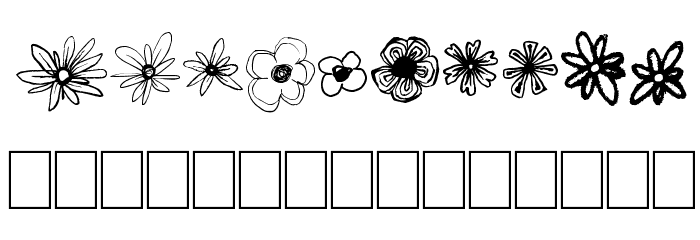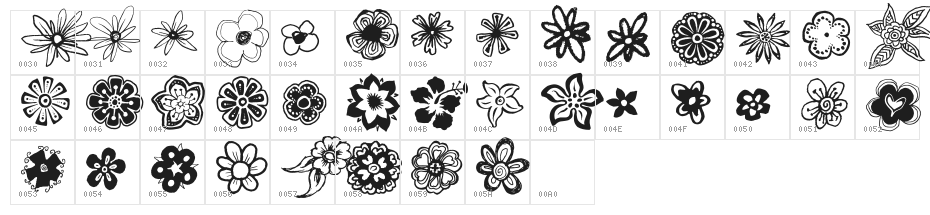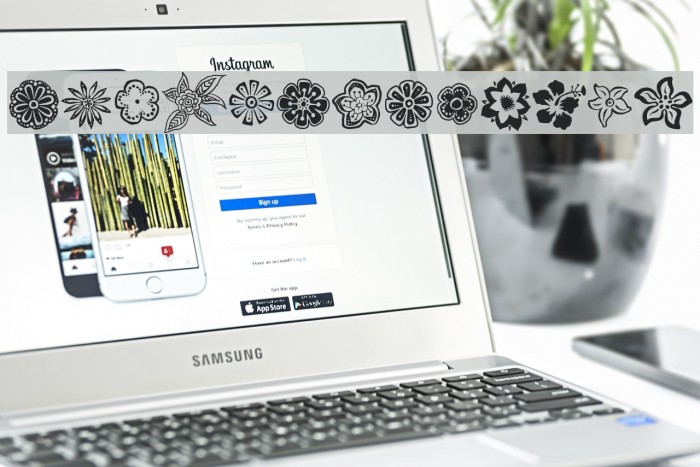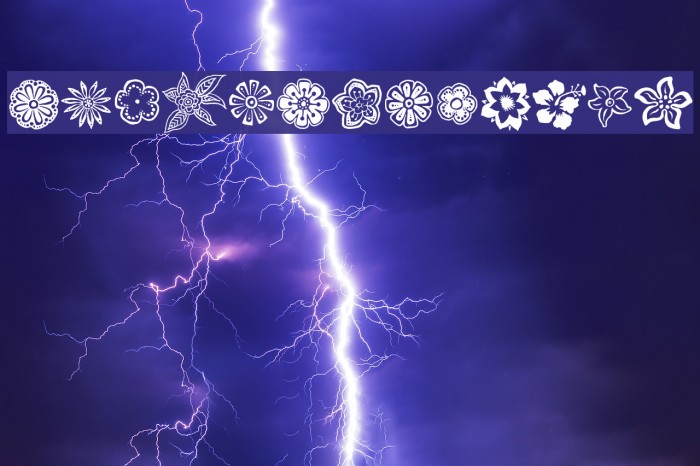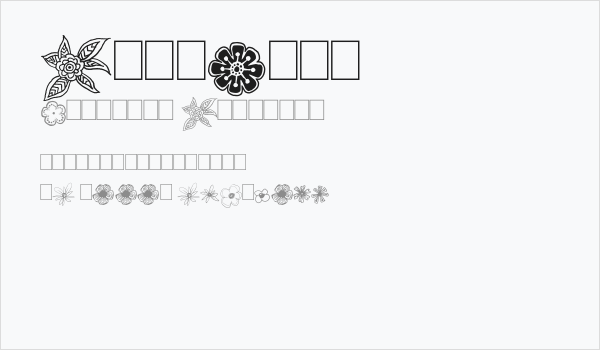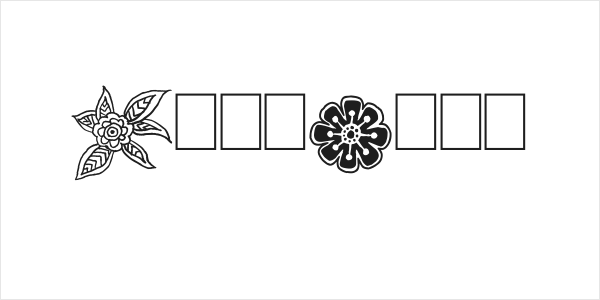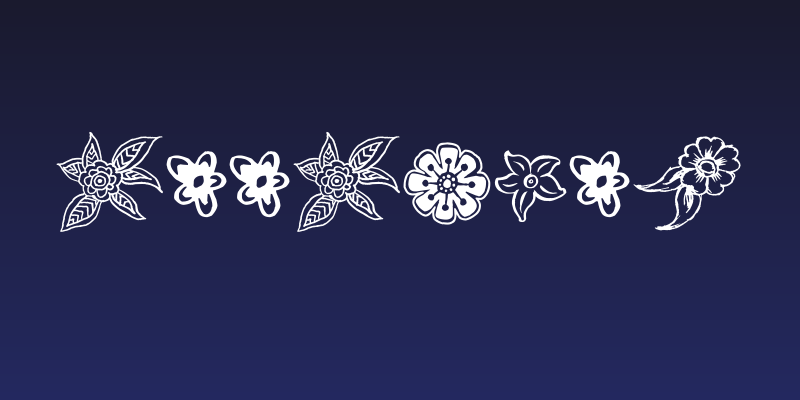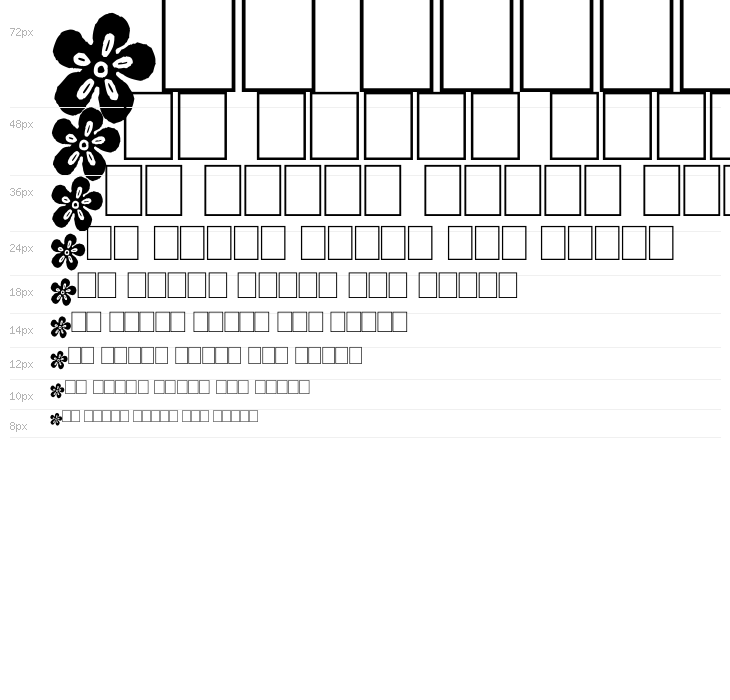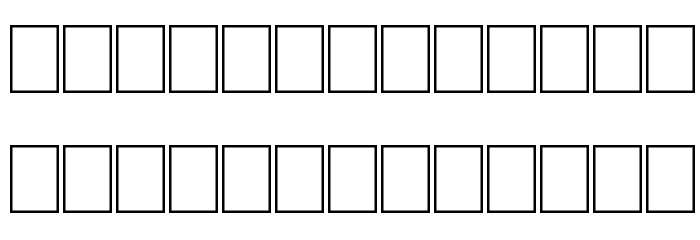
DoodFlow Font
DoodFlow Description
A decorative font composed entirely of hand-drawn flower illustrations, each character represented by a unique floral doodle. The style is playful and whimsical, with varying line thickness and intricate details, giving a lively and informal appearance.
| Overall Style | Decorative, Whimsical, Hand-drawn |
| Use Case | Decorative elements, Headlines, Craft projects, Themed event materials |
| Proposed Projects | Greeting cards, invitations, scrapbooking, posters, children's projects, decorative headings. |